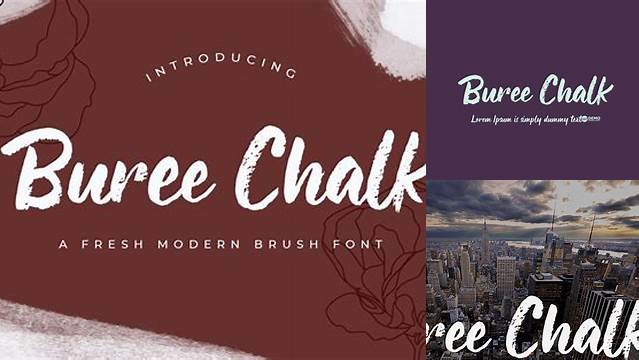
Buree Chalk Font: Free Download & Usage Guide
Hey guys! Are you on the hunt for that perfect hand-drawn, chalkboard-style font to spice up your designs? Look no further! The Buree Chalk regular font might just be what you need. This font has a charming, rustic feel that's perfect for a wide range of projects, from posters and invitations to social media graphics and branding. In this article, we're diving deep into everything you need to know about Buree Chalk, including where to find it for free, how to use it, and some creative ideas to get your design juices flowing. So, let's jump right in!
What Makes Buree Chalk Font Special?
Before we get into the nitty-gritty of downloading and using Buree Chalk, let's talk about what makes this font so special. Buree Chalk isn't just another generic font; it's got character! Its irregular lines and slightly imperfect edges give it a handcrafted feel that's hard to replicate with other fonts. This makes it ideal for projects where you want to convey a sense of authenticity and warmth. Think about using Buree Chalk for a coffee shop menu, a children's book, or even a wedding invitation. The possibilities are endless!
The Charm of Hand-Drawn Fonts
There's something inherently appealing about hand-drawn fonts, and Buree Chalk captures that essence beautifully. In a world dominated by sleek, digital designs, a font like Buree Chalk stands out because it feels personal and approachable. It's the kind of font that makes people feel like there's a human touch behind the design, and that can be incredibly powerful.
Versatility in Design Projects
Buree Chalk's versatility is another reason why it's so popular. Whether you're working on a playful children's project or a sophisticated branding campaign, this font can adapt to your needs. Its readability is excellent, even in smaller sizes, and it pairs well with a variety of other fonts, giving you plenty of creative freedom.